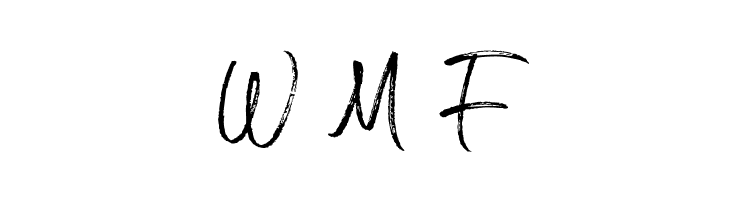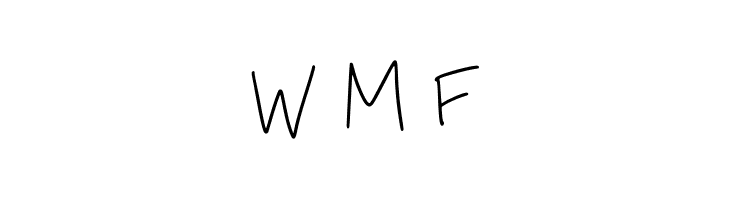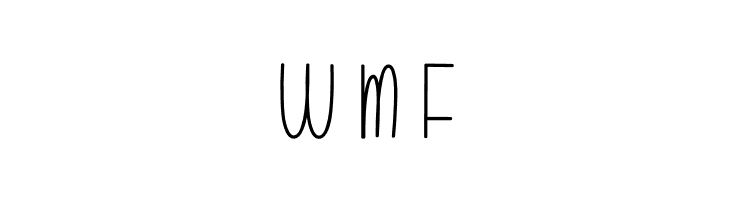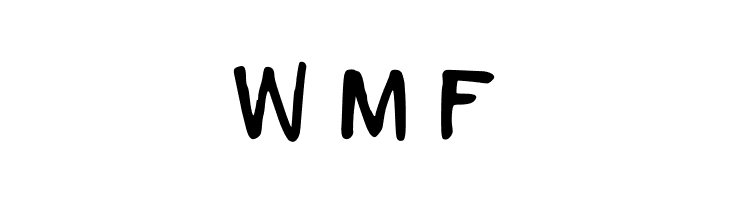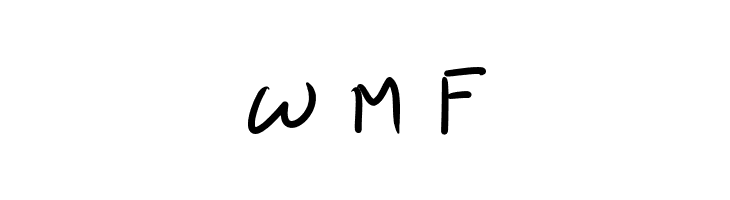
A dynamic, expressive handwritten font with fluid, spontaneous strokes.
A bold, playful handwritten font with smooth, rounded characters.
A casual, handwritten font with smooth, rounded strokes and consistent line weight.
A casual, handwritten-style font with consistent strokes and playful character spacing.
A playful, casual handwritten font with tall, narrow letters and consistent stroke width.
A casual, handwritten font with a playful and relaxed style.
A playful, handwritten-style font with dynamic uppercase and bold lowercase letters.
A playful and casual handwritten font with a whimsical charm.